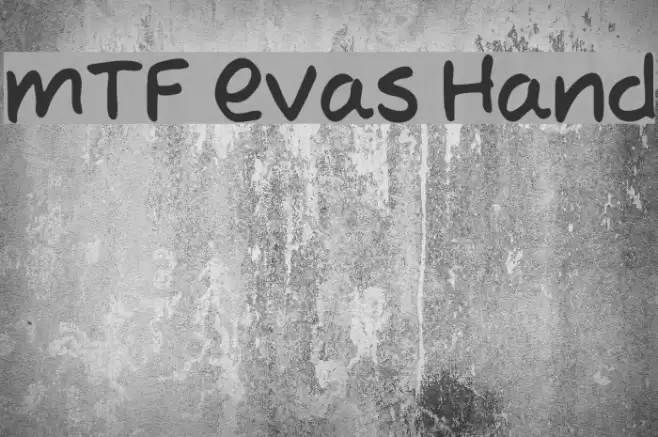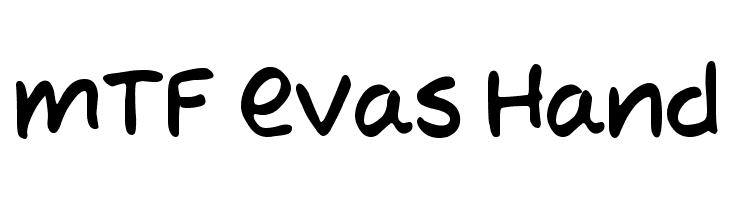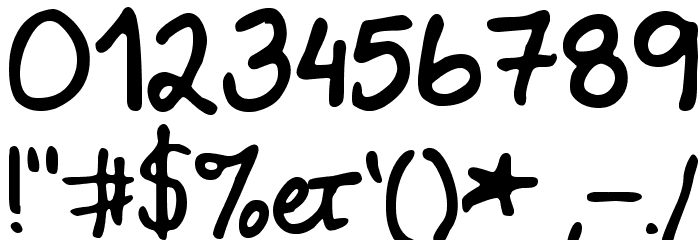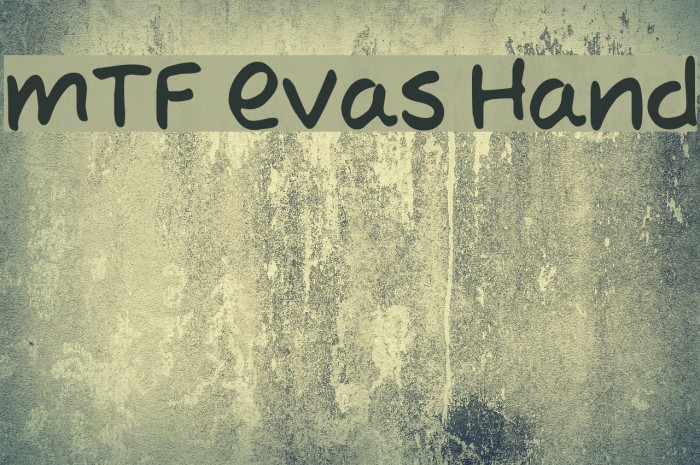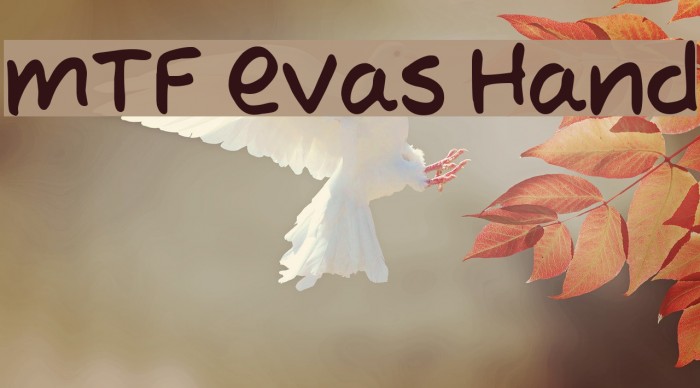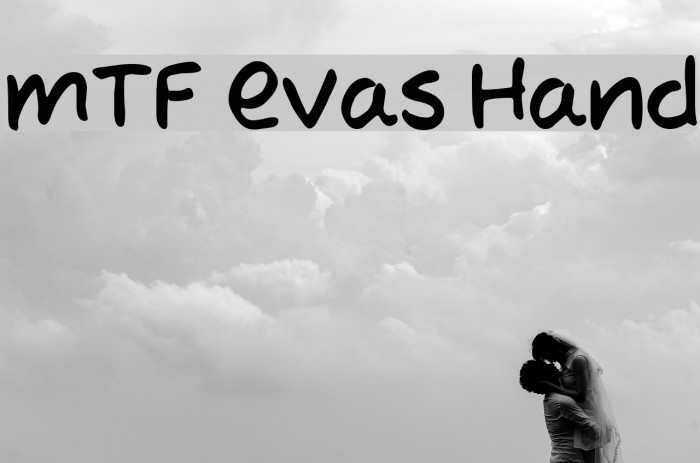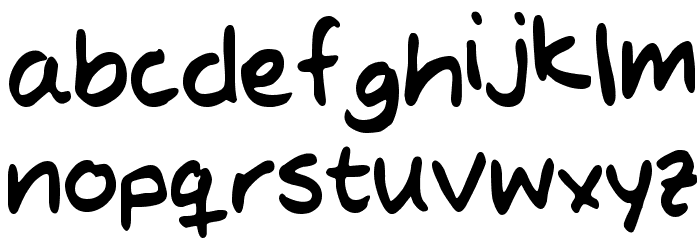
MTF Evas Hand Font
MTF Evas Hand Description
This font features a playful and casual handwritten style, characterized by its smooth and rounded strokes. The letters are slightly slanted, giving a dynamic and informal appearance. The uppercase and lowercase letters are well-balanced, maintaining a consistent flow throughout. The numerals and special characters complement the alphabet with a similar handwritten charm. The overall look is friendly and approachable, making it suitable for projects that require a personal touch.
A playful, casual handwritten font with smooth, rounded strokes from Uncategorized fonts.
- Proposed Projects: Ideal for greeting cards, children's books, informal invitations, and personal branding.
- Overall Style: Casual
- Use Case: Logos, Invitations, Personal projects